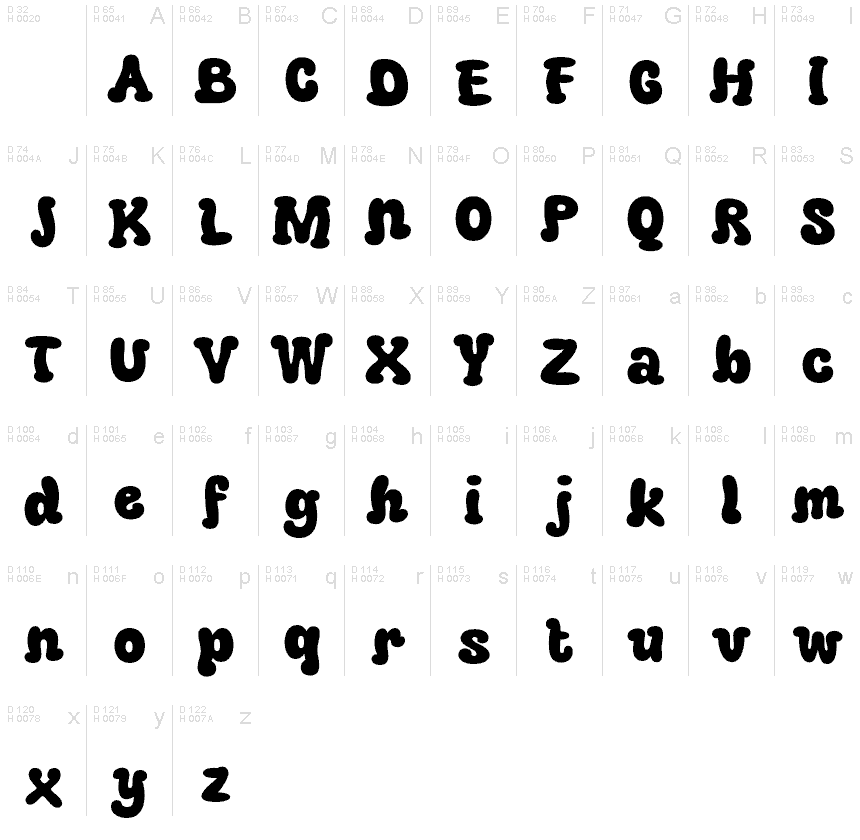
Radey Demo Regular
Radey font by Craft Supply Co is a cartoon display font with a bold weight. Mimicking the rounded style typical for cartoons and comic strips, the typeface stands out thanks to its extended body size and whimsical styling. The free font has a retro presence with its condensed letters, smooth curves, and bouncy relaxed setup.
Radey is an excellent choice for title headings within posters, flyers, and magazines. It works exceptionally well in labels inside brands of food products or commercial packaging. Company logos are other perfect places where it can be adopted in addition to more modern settings like electronic applications and web platforms.